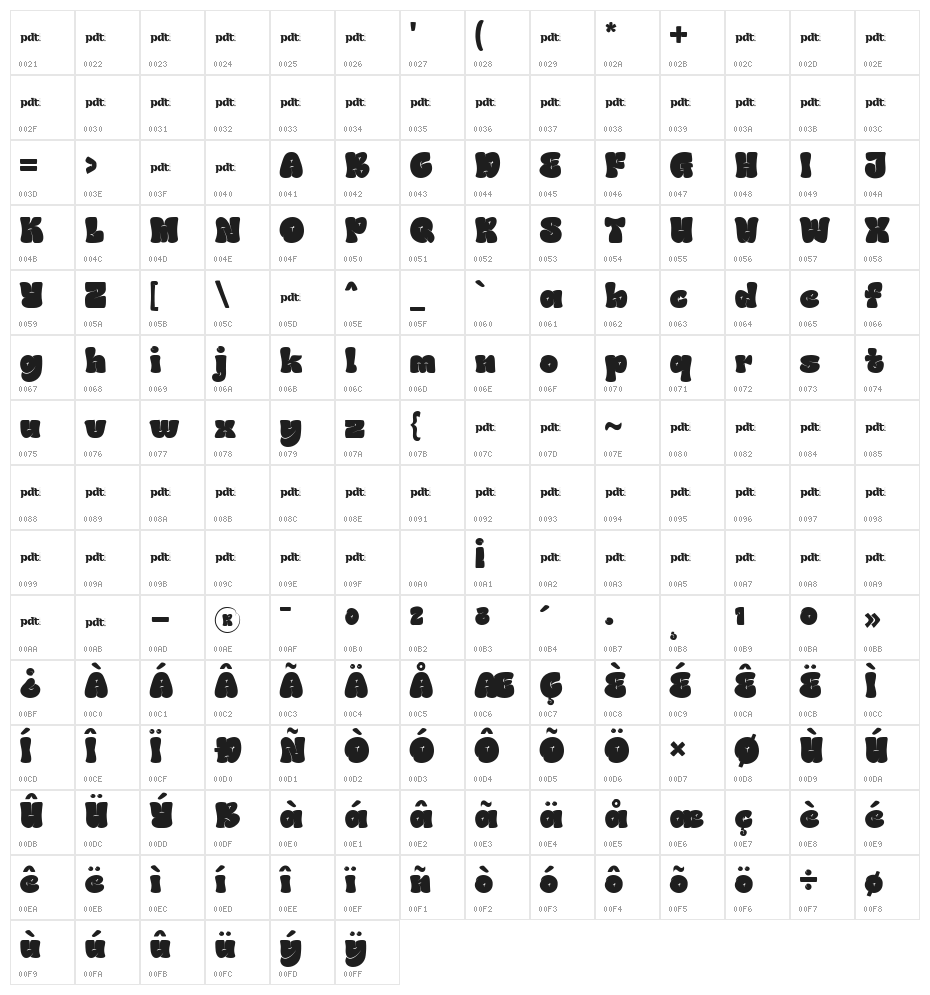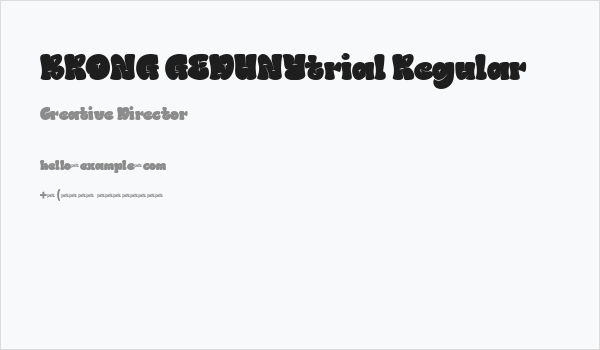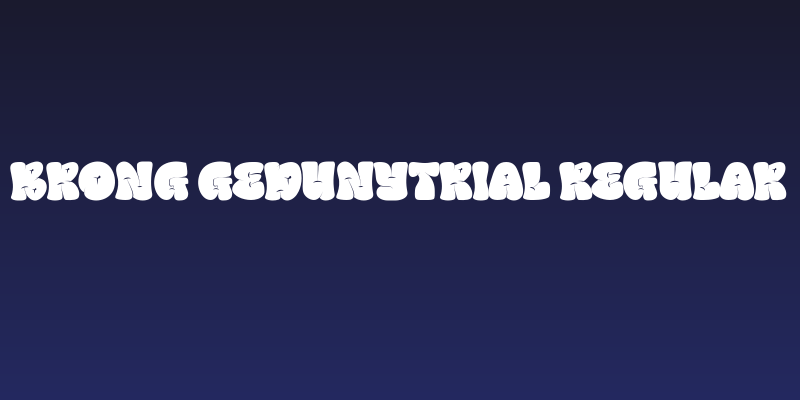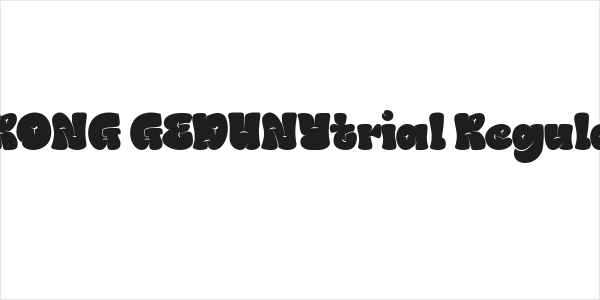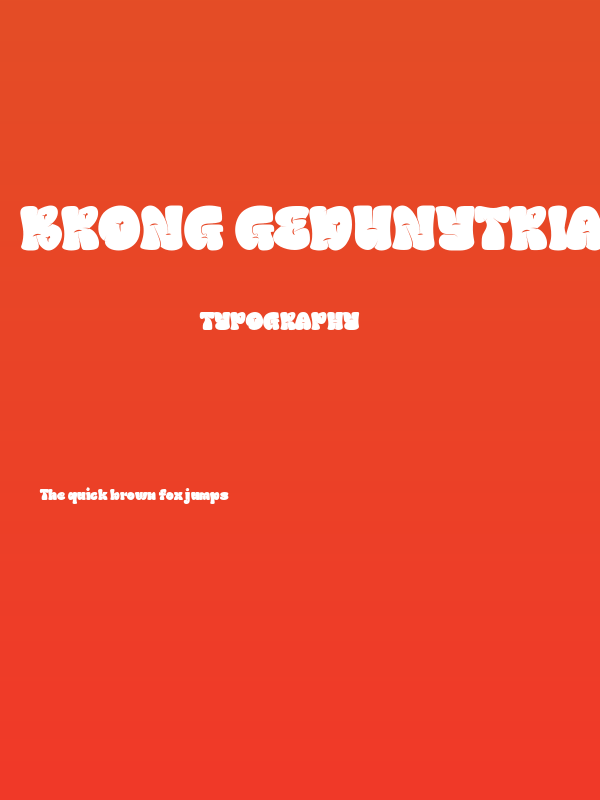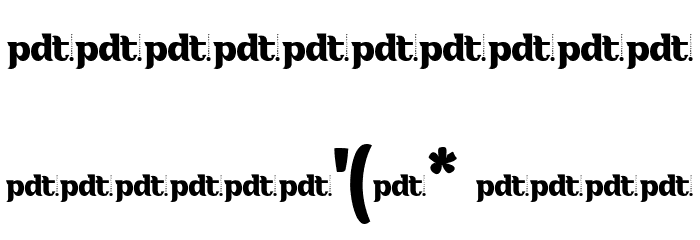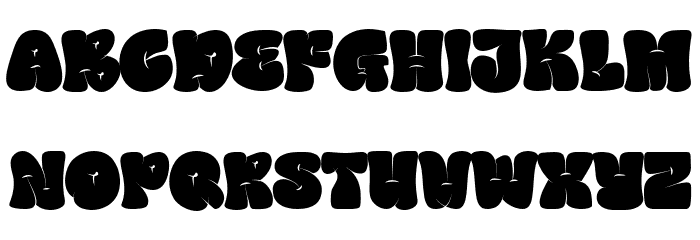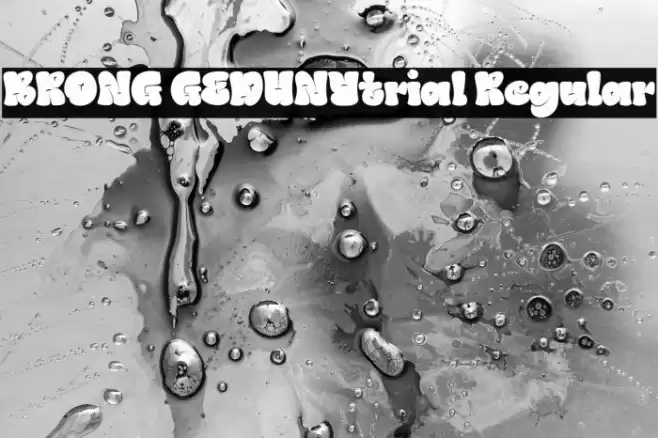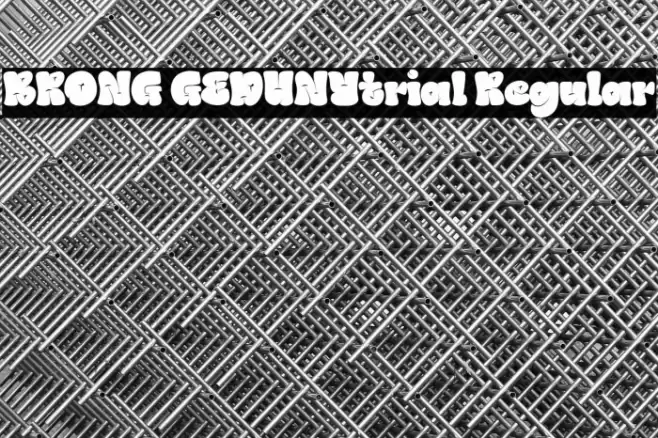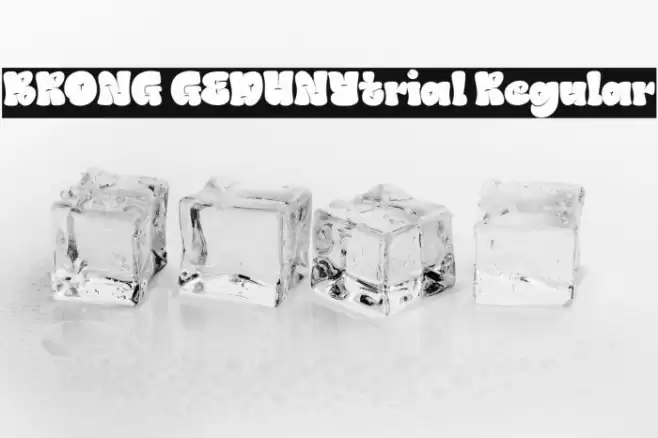
BRONG GEDUNYtrial Regular Font
BRONG GEDUNYtrial Regular Description
This font features a bold and playful design with thick, rounded strokes that create a sense of fun and whimsy. The characters are heavily weighted, giving them a strong presence on the page. The rounded edges and bubbly appearance make it ideal for projects that require a touch of humor or lightheartedness. The font maintains a consistent thickness throughout, with minimal contrast between strokes, contributing to its cohesive and uniform look. Its unique style is eye-catching and memorable, suitable for creative and informal applications.
| Proposed Projects | Ideal for children's books, comic strips, playful branding, and party invitations. |